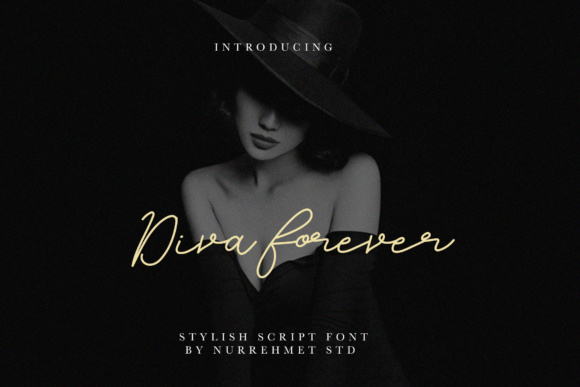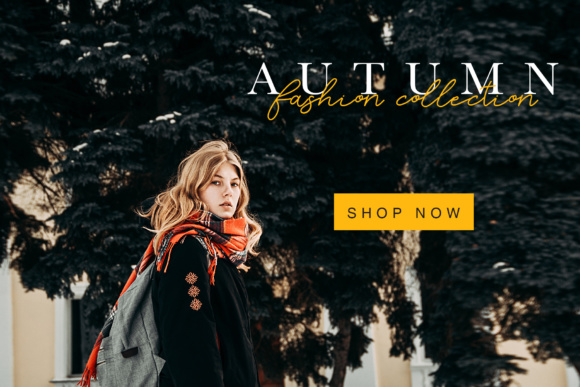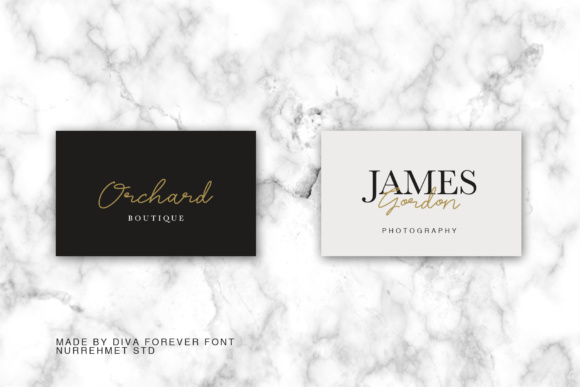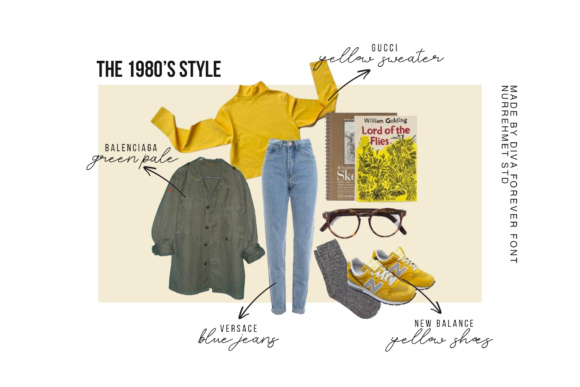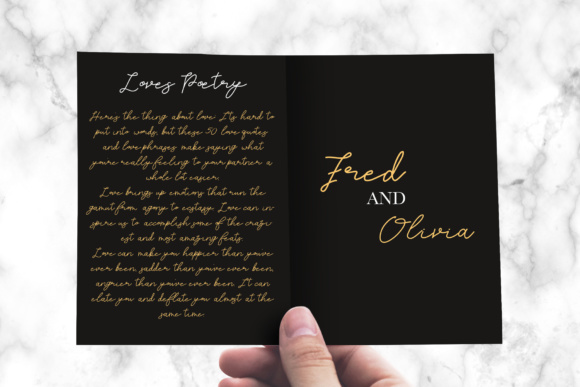
Diva Forever Font
About Diva Forever Font
Diva Forever is a beautiful, signature font that works in a wide range of creative projects. This font looks gorgeous in fashion oriented designs and will give your work an elegant, feminine feel.